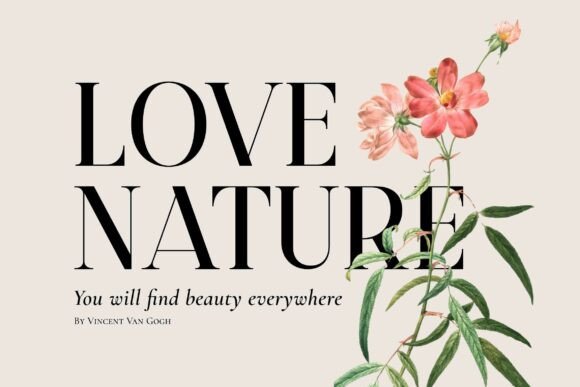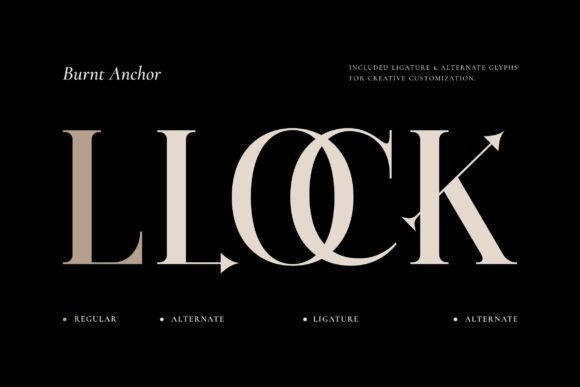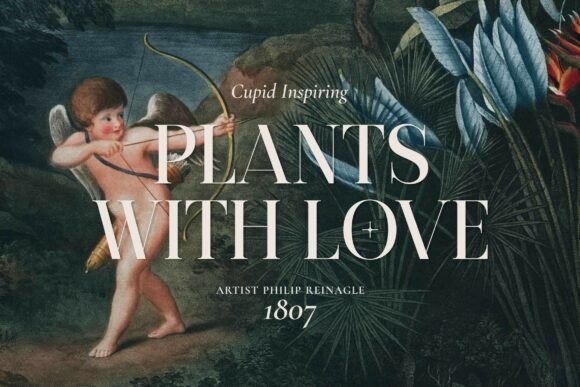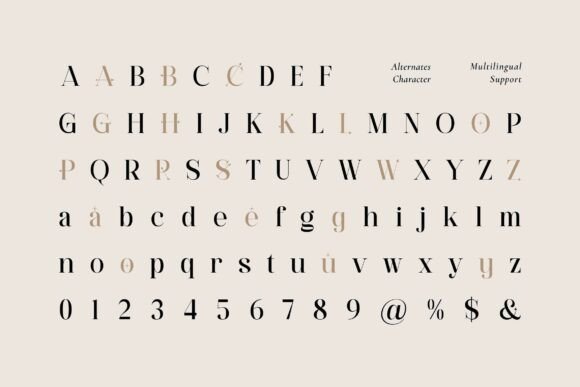
I still remember the frustration of working on a luxury branding project, searching for a font that exuded elegance and sophistication. My client wanted a typography system that would make their brand stand out, but I was struggling to find the right fit. That’s when I stumbled upon Burnt Anchor, a stunning serif display font that would change the game.
First Impressions: A Timeless Sophistication
Burnt Anchor masterfully blends classic elegance with modern minimalism, making it perfect for high-impact headlines, luxury branding, editorial design, and sophisticated logos. Its sharp, clean serifs and beautifully balanced proportions immediately caught my attention. But what truly sets it apart are the delicate star and arrows glyphs inset within select letters, adding a memorable and distinctive touch to typography.
Here’s what I love about Burnt Anchor:
- ✨ Elegant ligatures: The font comes with a host of elegant ligatures that allow for incredible customization.
- ✅ Comprehensive character set: Uppercase, lowercase, numerals, punctuation, and extensive multilingual support make it a versatile powerhouse.
- 🔥 Captivating alternates: The font’s alternates, including the star and arrows glyphs, add a unique touch to designs.
And here are some minor quirks to consider:
The Story Behind Burnt Anchor
Burnt Anchor was designed with the intention of creating a modern, elegant font that pays homage to classic typography. Inspired by traditional anchors and the sea, the font’s creator aimed to craft a unique and sophisticated typeface that would make a statement in any design.
| What makes Burnt Anchor unique? | The font’s delicate star and arrows glyphs, elegant ligatures, and comprehensive character set make it stand out. |
| Is Burnt Anchor suitable for body text? | While Burnt Anchor is primarily designed for display purposes, its clean serifs and balanced proportions make it legible for short paragraphs or captions. |
| Is Burnt Anchor available in multiple languages? | Yes, Burnt Anchor supports multiple languages, making it a versatile choice for global brands and designs. |